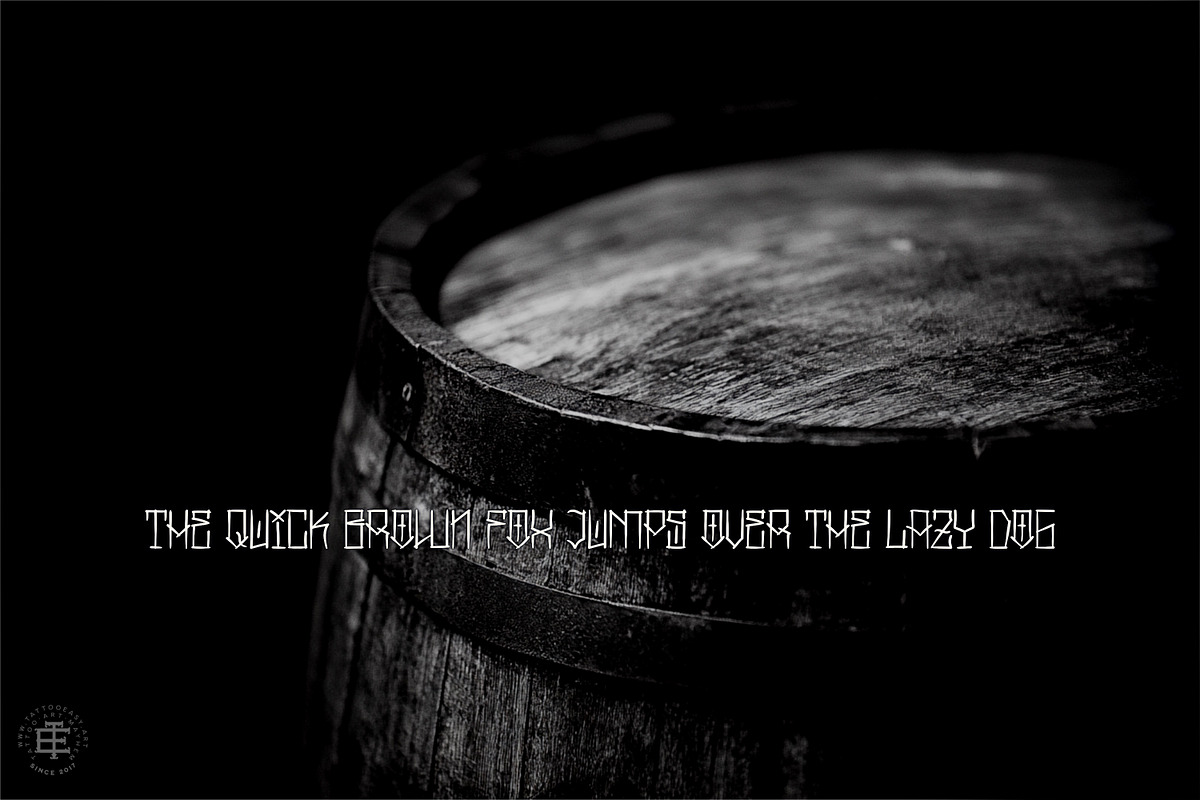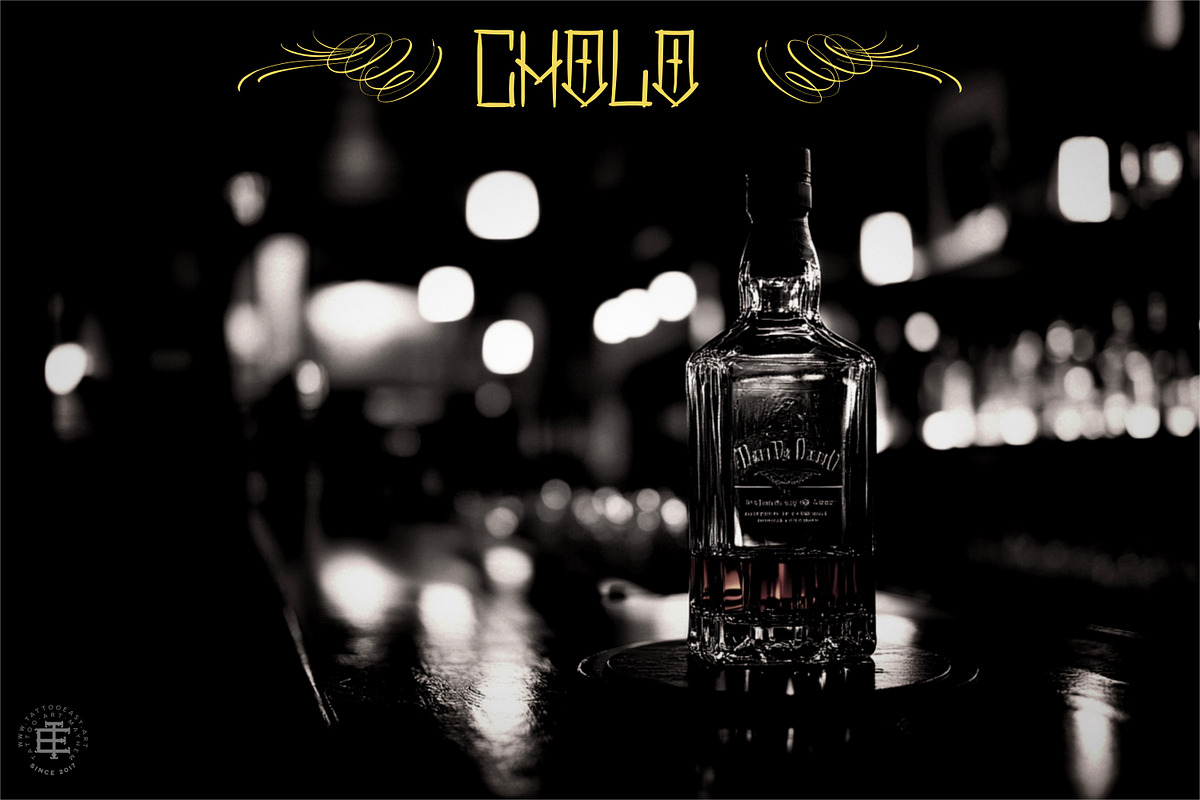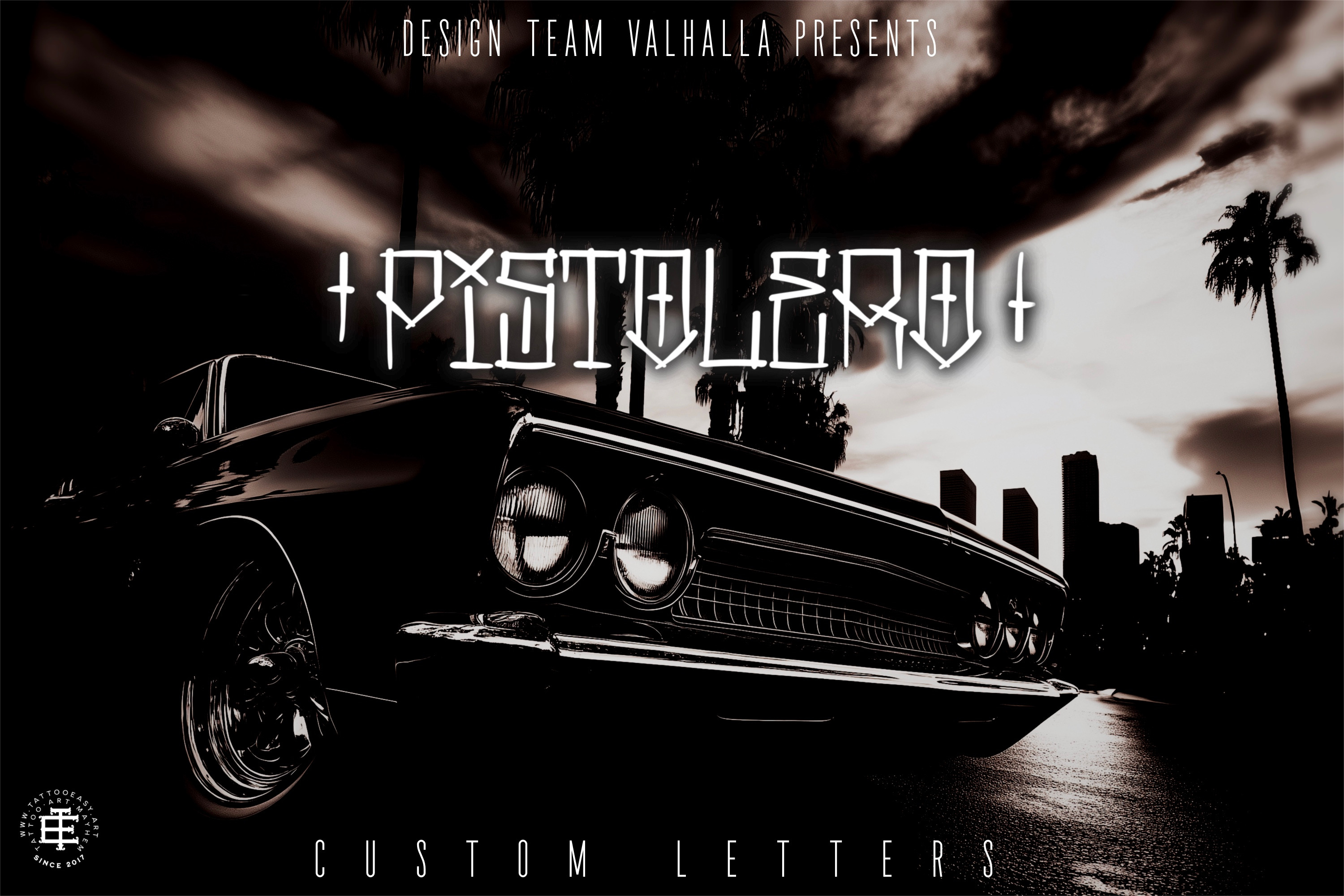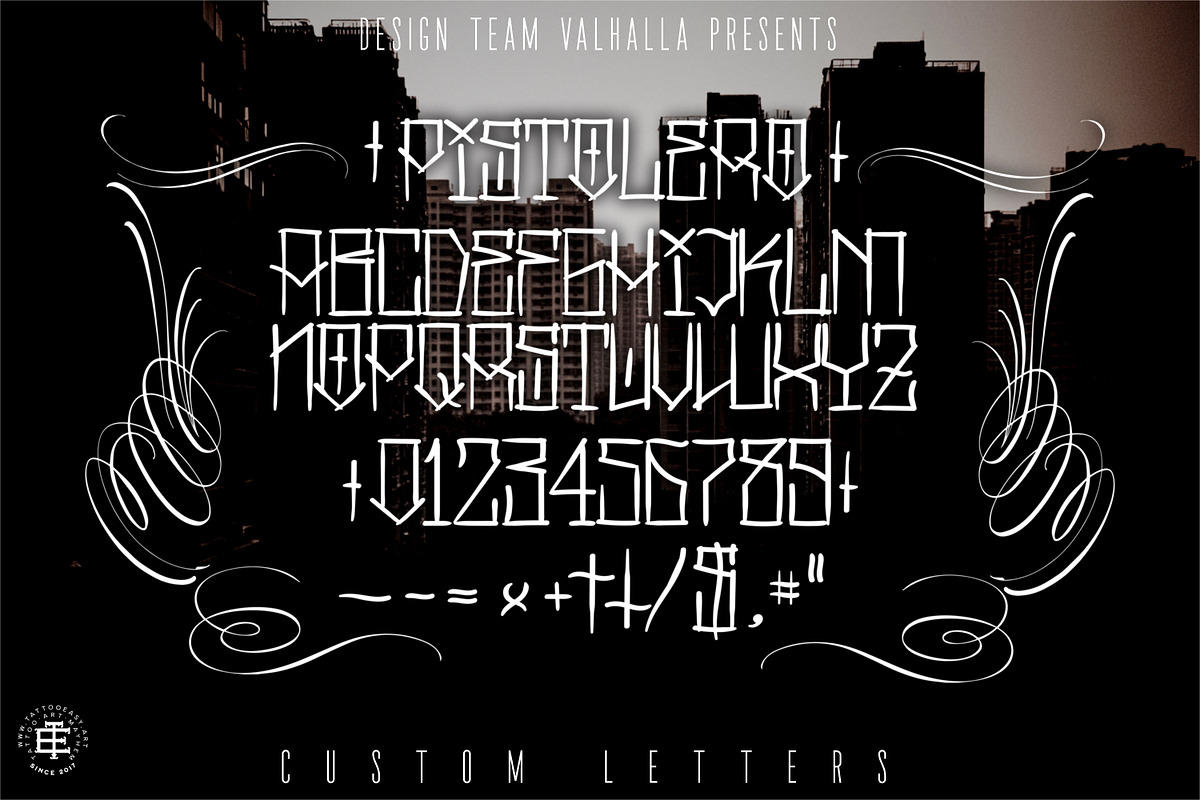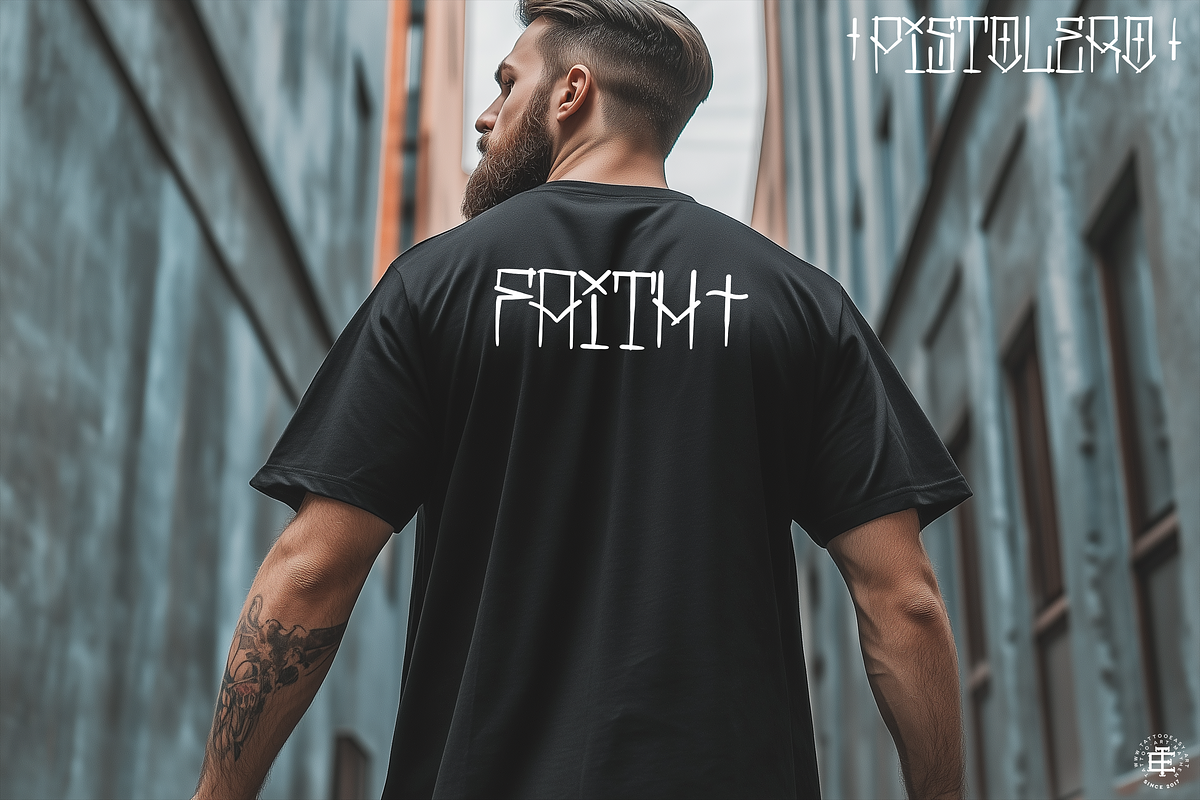
Pistolero, Custom hand drawn font
fun project made in illustrator, hand drawn letters and some extras included! Pistolero Regular & Bold + .ai files included